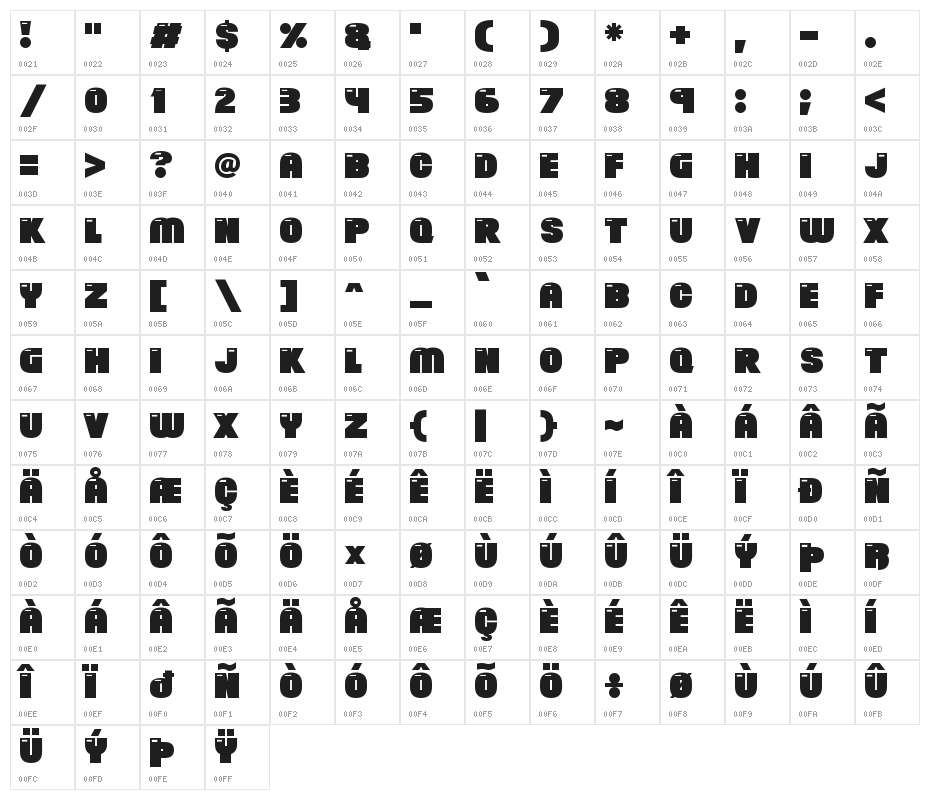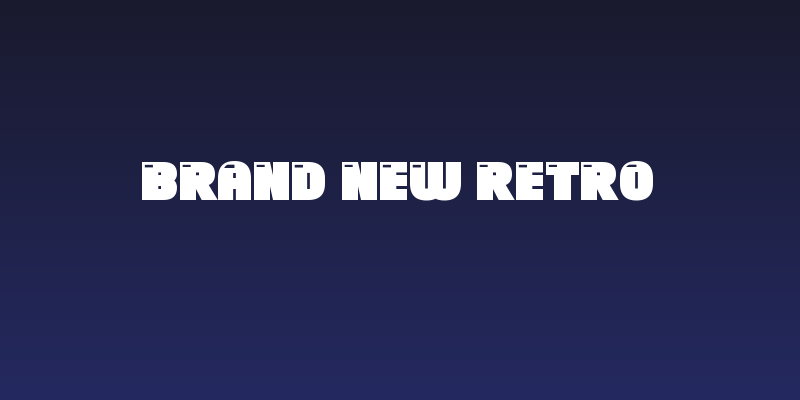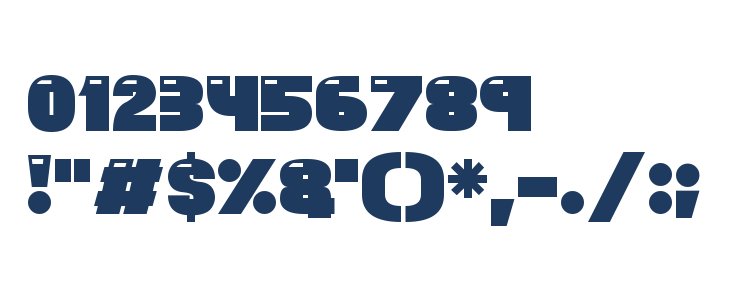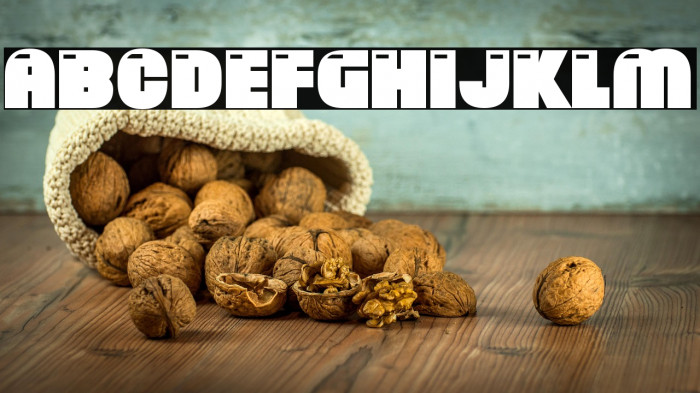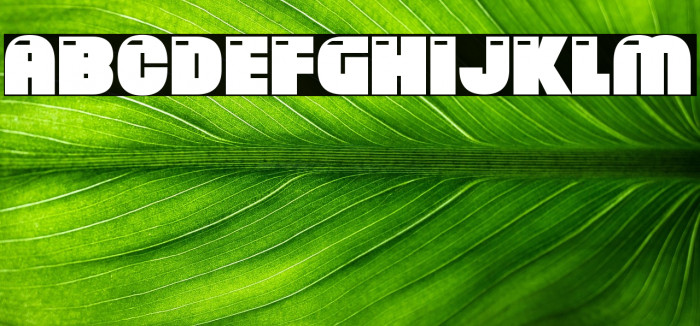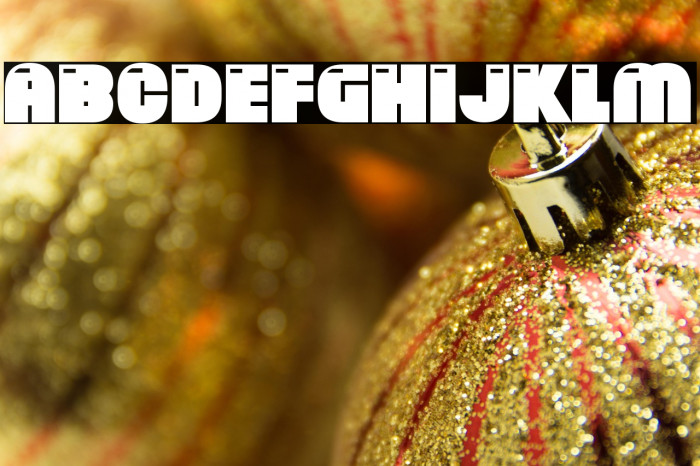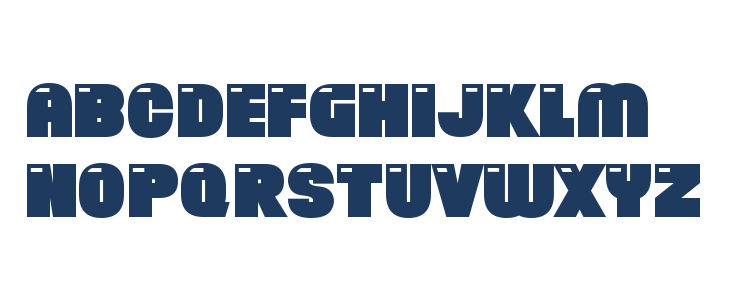
Brand New Retro Font
Brand New Retro Description
This font features a bold, geometric design with a distinctly retro aesthetic. The characters are blocky and robust, with a uniform thickness that gives them a strong presence. The rounded edges and consistent stroke width contribute to a cohesive look, while the unique cutouts in certain letters add a touch of modern flair. The font is highly legible and makes a striking impact, ideal for capturing attention. Its style is reminiscent of vintage signage and posters, making it perfect for projects that aim to evoke nostalgia or a sense of classic appeal.
| Overall Style | Retro |
| Proposed Projects | Ideal for vintage-themed posters, retro branding, eye-catching headlines, and logo designs. |